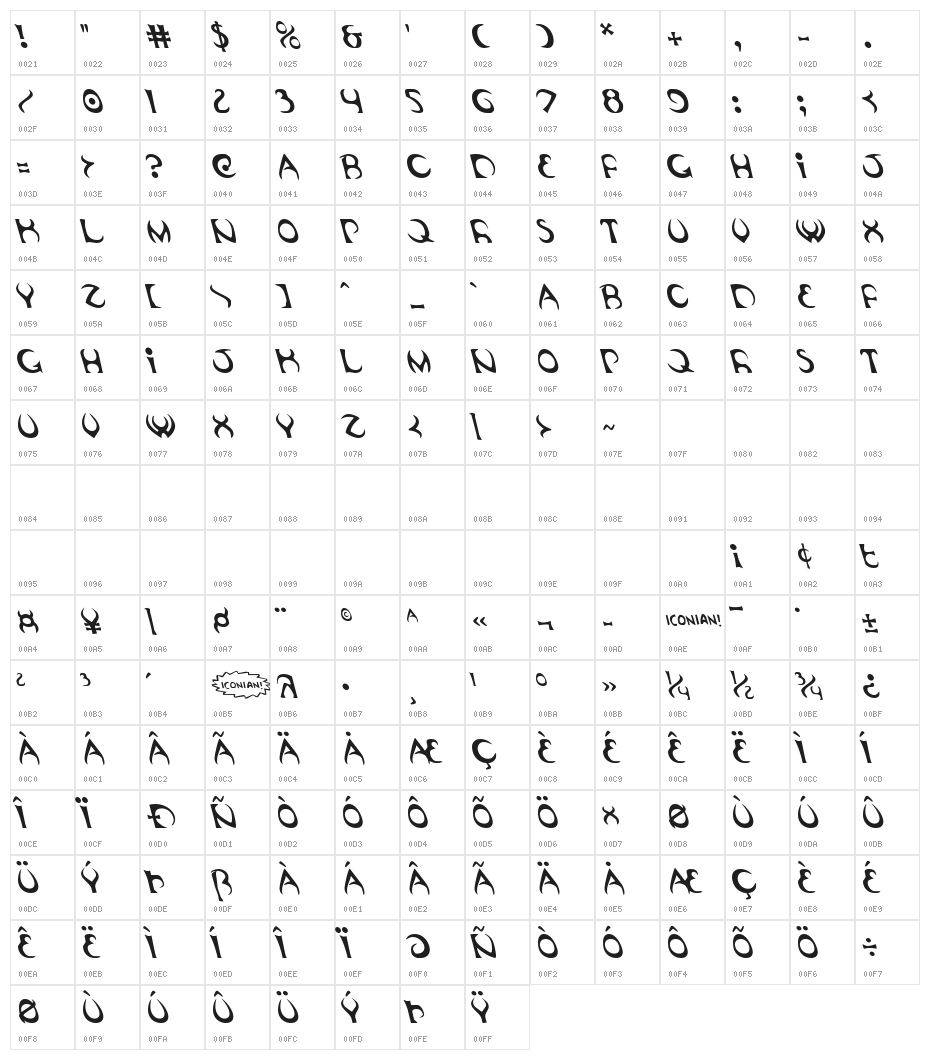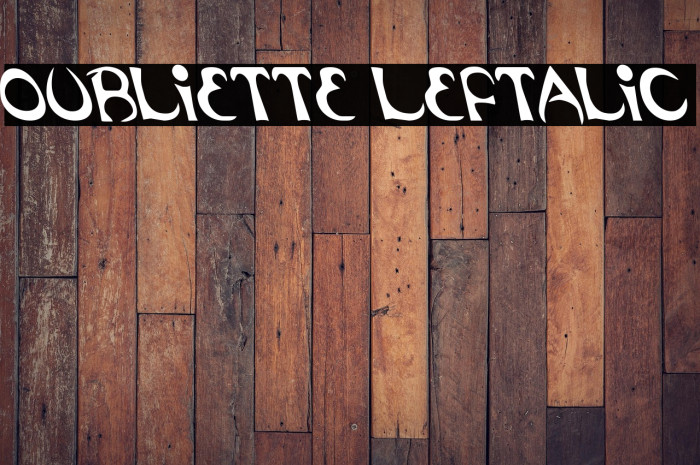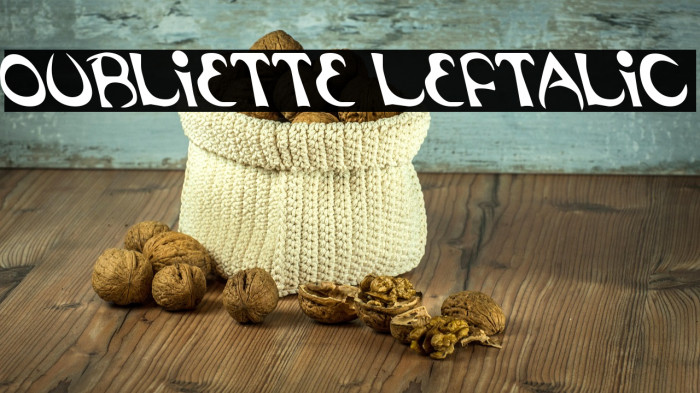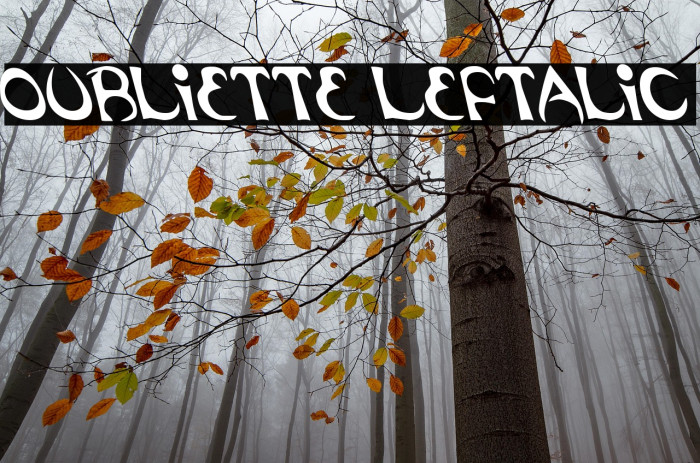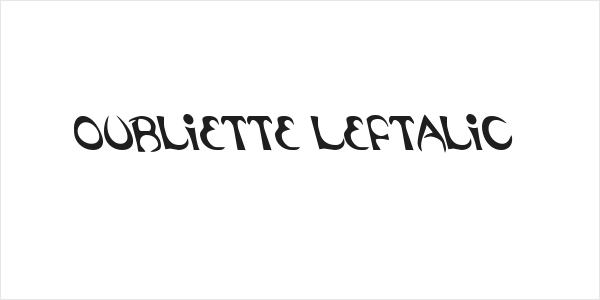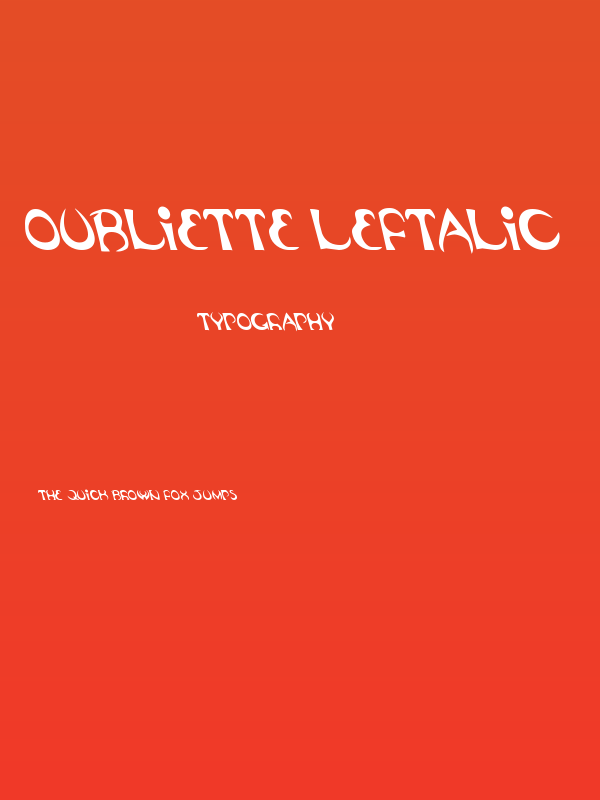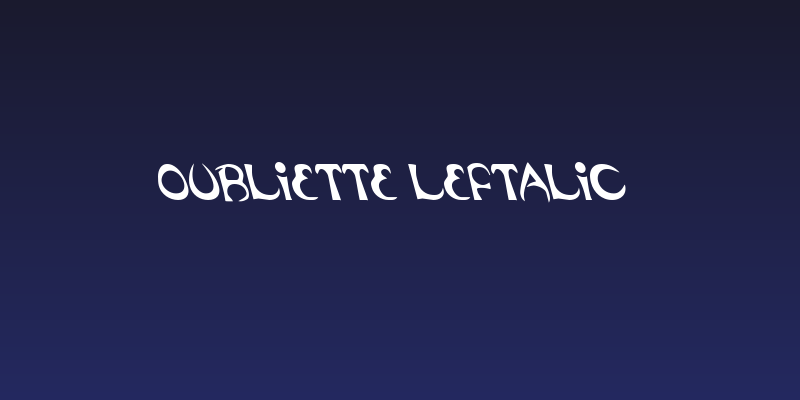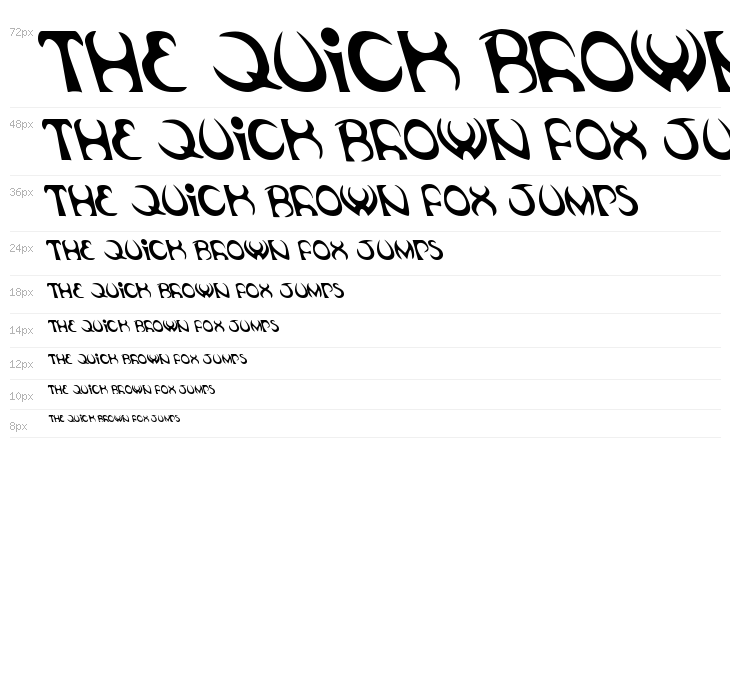
Oubliette Leftalic Font
Oubliette Leftalic Description
This font features a unique and artistic design with a strong emphasis on curves and angles, creating a dynamic and fluid appearance. The letters are bold and have a distinct leftward slant, giving them a sense of motion and energy. The strokes are thick and consistent, with high contrast between the thick and thin parts, adding to the dramatic effect. The characters are tightly spaced, enhancing the compact and cohesive look. This font stands out with its decorative and modern style, making it suitable for eye-catching designs.
Proposed ProjectsIdeal for creative projects such as posters, album covers, branding, and any design that requires a bold and artistic touch.